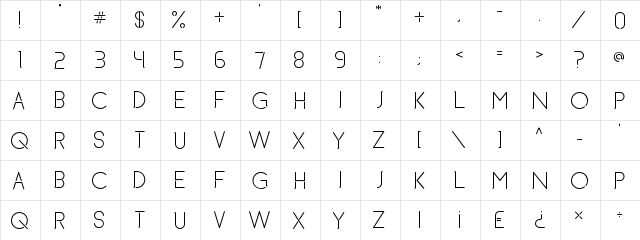
Brett and Beer Regular
Design Context for Brett and Beer Typeface
Brett and Beer is a composed and adaptable typeface that performs quietly and consistently across a wide range of design contexts.